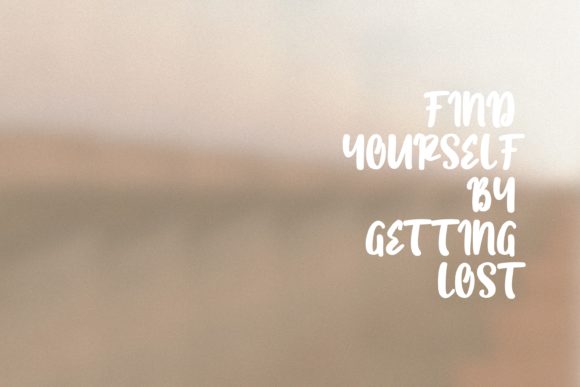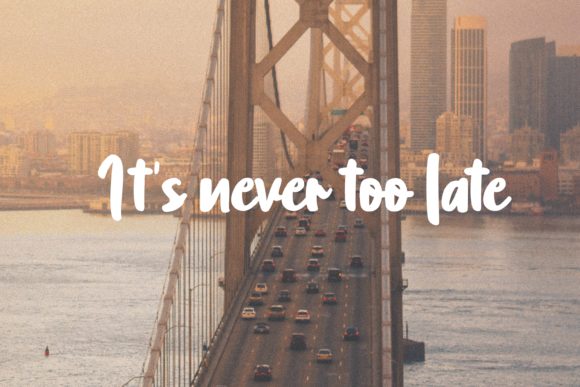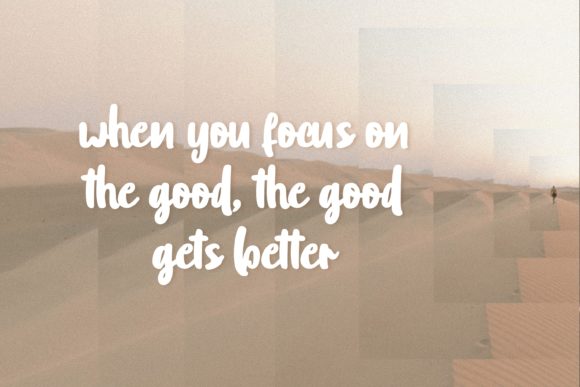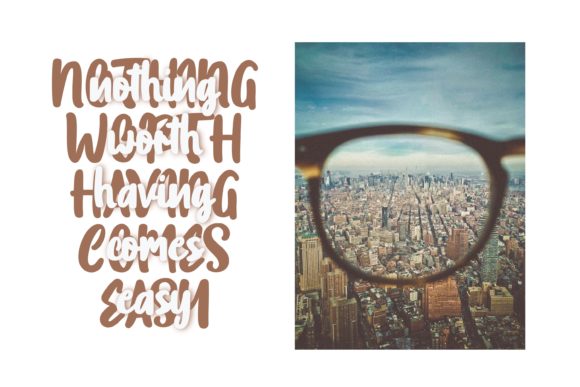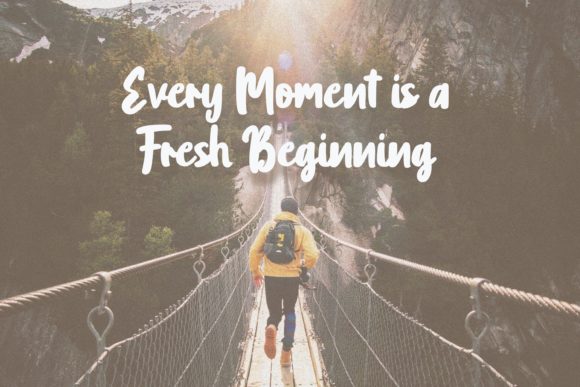
Introduction to Imstory Font
As designers, we’ve all been there – staring at a blank canvas, searching for the perfect font to bring our creative project to life. The moment of truth arrives when we finally find that elusive combination of style and personality that makes our design truly shine. For those who’ve been on this quest, we’re excited to introduce you to the Imstory Font, a sweet and delicate handwritten font that’s sure to capture the essence of romance and whimsy in your next design.
Whether you’re crafting wedding invitations, designing a custom card, or working on a project that requires a touch of elegance, the Imstory Font is an invaluable resource that will elevate your design to new heights. With its dainty and joyful feel, this high-quality font is perfect for adding a personalized touch to your creative project, and the best part? It’s available for free download with a transparent background, making it a versatile and convenient design resource.
Key Features of Imstory Font
- Unique, hand-drawn font with a transparent background, perfect for adding a personal touch to designs.
- Designed to be versatile, making it suitable for a wide range of creative projects, from logos to packaging designs.
Honest Review: Imstory Font
I recently came across the Imstory Font while searching for a high-quality design resource for a creative project. I was excited to dive in and see what this free download had to offer.
- High-quality design: The Imstory Font boasts a beautiful, elegant design that’s perfect for a variety of creative projects.
- Transparent background: The transparent background option allows for seamless integration with any design, making it a great asset for designers.
- Limited character set: While the Imstory Font is a beautiful design, it’s limited to a specific character set, which may not be ideal for designers who need a wider range of characters.
- No bold or italic options: I found that the Imstory Font lacks bold and italic options, which can limit its versatility in certain design applications.
Overall, I’m impressed with the Imstory Font’s high-quality design and transparent background options. While it may have some limitations, I think it’s a great addition to any designer’s toolkit.
The Imstory Font is a high-quality design resource that offers a unique and creative touch to your projects. With its transparent background, you can easily integrate it into your design without any distractions.
Getting the Most Out of Imstory Font
To get the most out of the Imstory Font, try experimenting with different font sizes, colors, and combinations. You can also use it to create a consistent brand identity across your creative projects.
The Imstory Font is ideal for:
- Graphic design and visual identity
- Print design and marketing materials